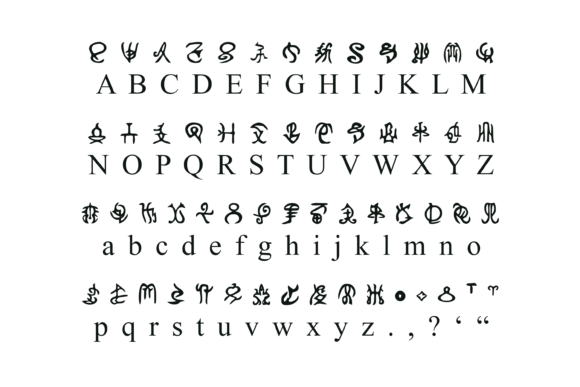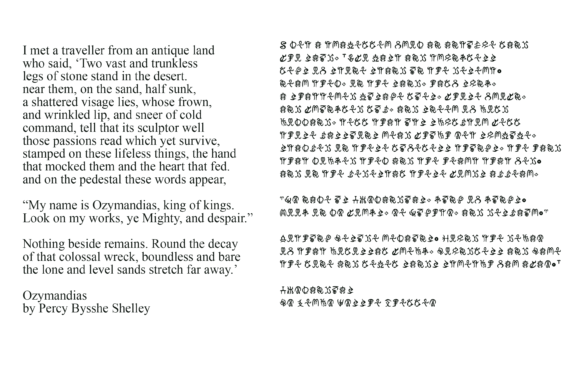
Introduction to Fantasy Script 19 Font
This Fantasy script font is perfect for your next Dungeons and Dragons campaign, fantasy LARP adventure, novel, or whatever else you’re working on.
This font includes the standard English alphabet and basic punctuation .
Key Features of Fantasy Script 19 Font
Why Choose Fantasy Script 19 Font?
Fantasy Script 19 Font offers exceptional quality and versatility, making it a valuable addition to your design toolkit. Whether you’re creating for personal projects or commercial use, Fantasy Script 19 Font delivers professional results.